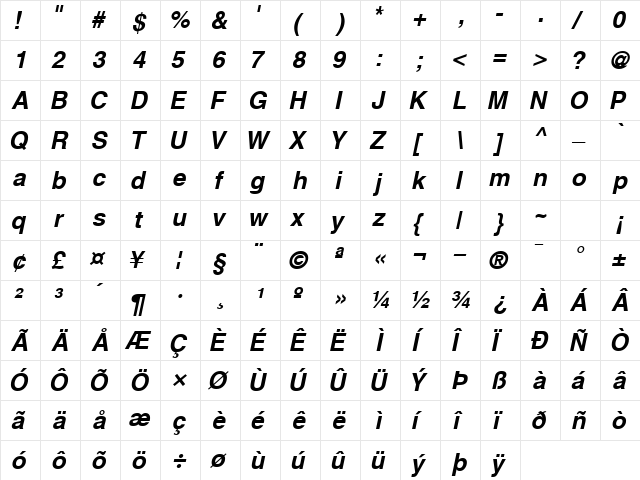
ContextSSK BoldItalic Font Preview
Design Context for ContextSSK Typeface
ContextSSK takes a measured approach to typography — its balanced proportions and neutral character make it a reliable workhorse for both digital and print work. Its italic angle brings a sense of urgency and motion to the letterforms. Its bold stroke weight gives it real presence on the page.
Pro Tip: Try ContextSSK for annotation and caption copy alongside an upright companion — the contrast in angle creates a dynamic but ordered typographic system.